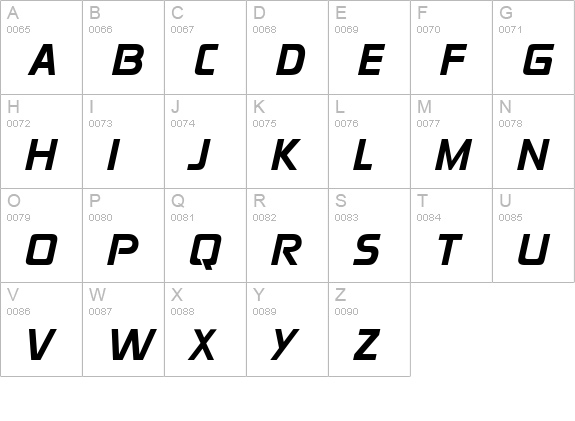
Introducing PanamaBold, a bold and captivating font that exudes strength and confidence. This versatile typeface is perfect for making a bold statement in your designs, whether it's for a logo, headline, or any creative project that needs a touch of boldness. PanamaBold features sleek and clean lines, making it easily readable in both large and small sizes. Its bold and impactful letterforms demand attention and create a memorable visual impact. Each character is meticulously crafted to ensure clarity and legibility, making it ideal for various design applications. But what sets PanamaBold apart is not just its striking appearance, but also the fact that it is freely available to download at FontsMarket.com. Yes, you read that right - this exceptional font can be yours without any cost. Now you can enhance your projects with a premium-quality typeface without breaking the bank. Whether you're a professional designer, a student, or anyone who appreciates the power of typography, PanamaBold is a must-have in your font collection. Its versatility allows it to be used in a wide range of design projects, from branding and packaging to web design and editorial layouts. So why wait? Head over to FontsMarket.com now and unleash the boldness of PanamaBold in your next creative endeavor. With its seamless integration into your designs and the added benefit of being free, PanamaBold is the perfect choice for those who dare to stand out and make a lasting impression.